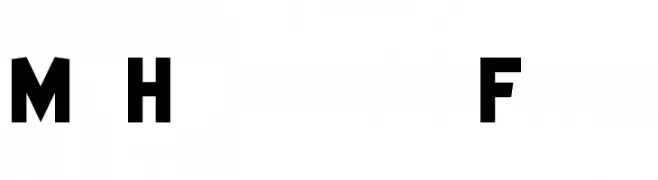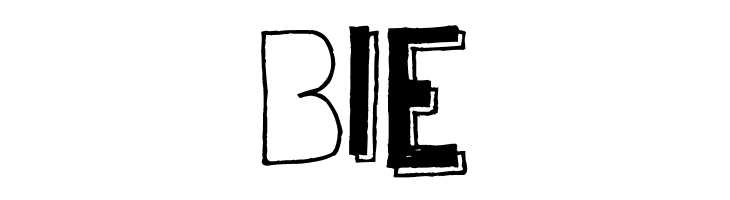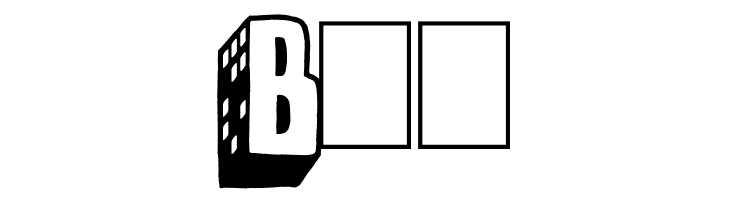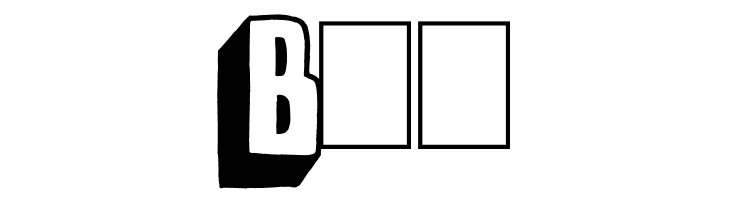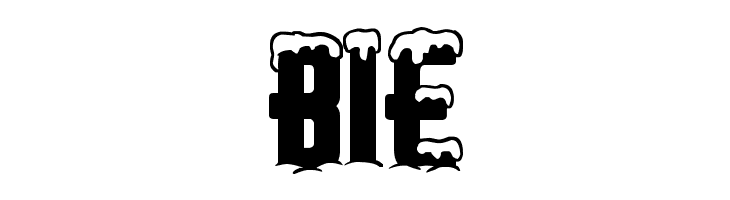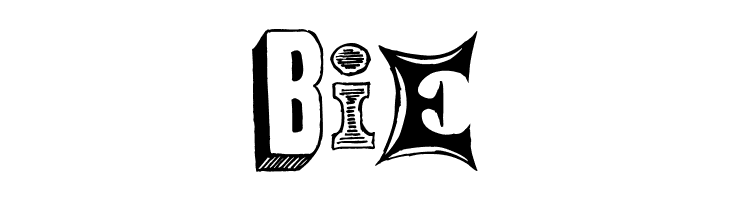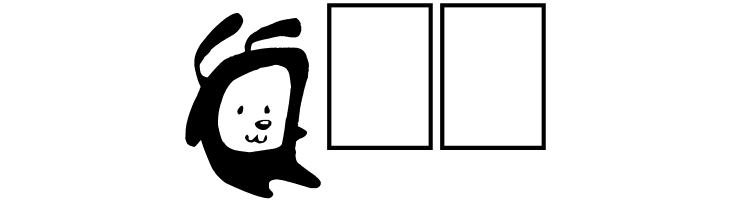
A bold, industrial font with a mechanical, three-dimensional style.
A bold, 3D block font with a playful, decorative style and dotted texture.
A bold, three-dimensional font with strong shadow effects and a geometric design.
A festive, snow-capped decorative font with bold, blackletter-inspired characters.
A decorative and eclectic font with unique, artistic character designs.
A decorative, cartoon-style font made of cute monster illustrations.
A bold, distressed font with a vintage, grunge aesthetic.
A bold, geometric font ideal for impactful headlines and titles.
A bold, geometric font perfect for impactful headlines and modern designs.
A playful, sock-themed decorative font with bold, blocky letters.